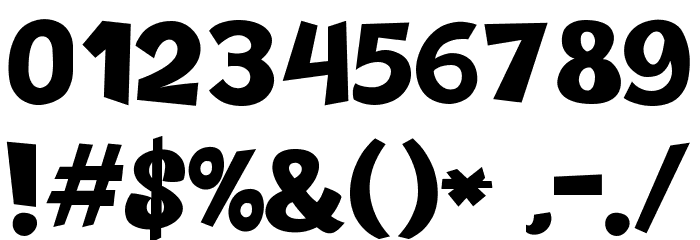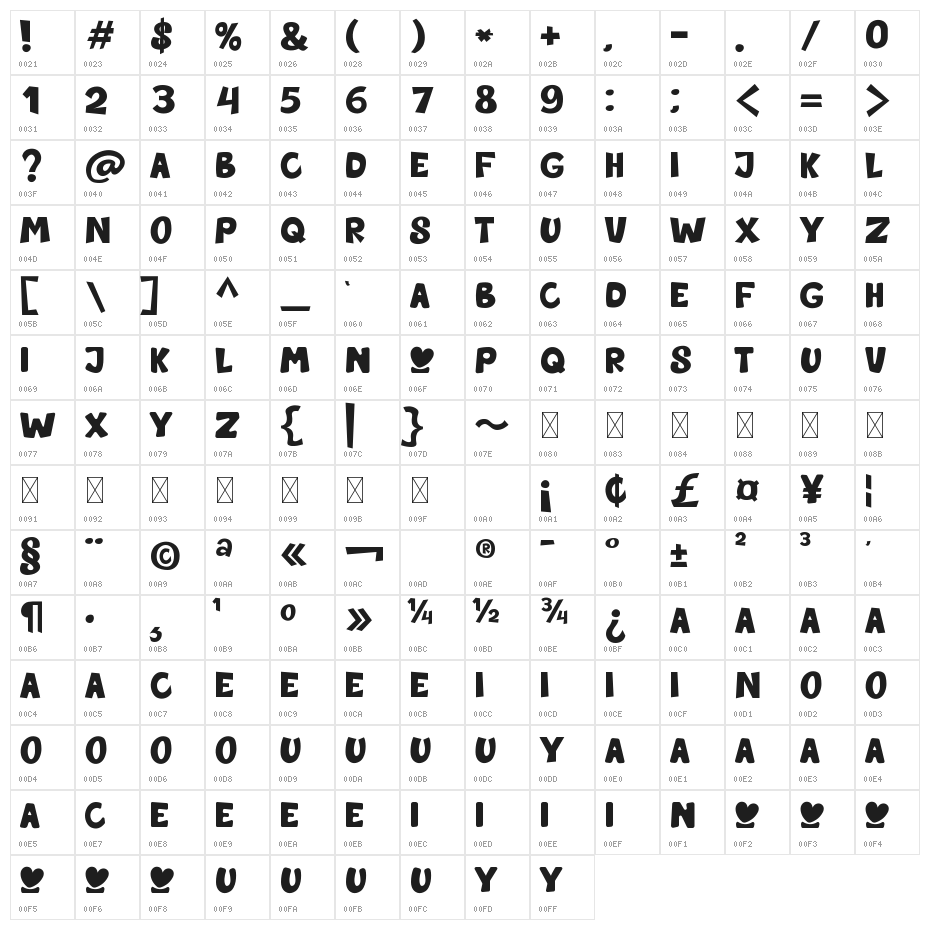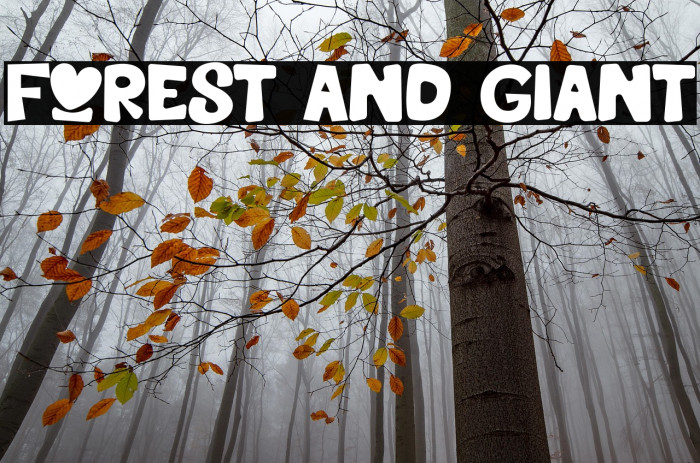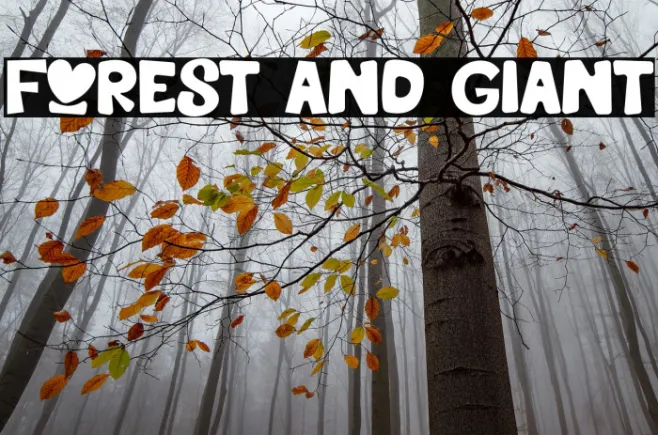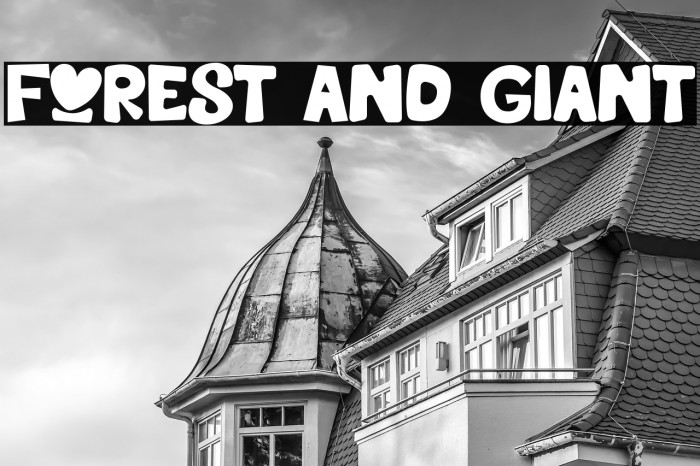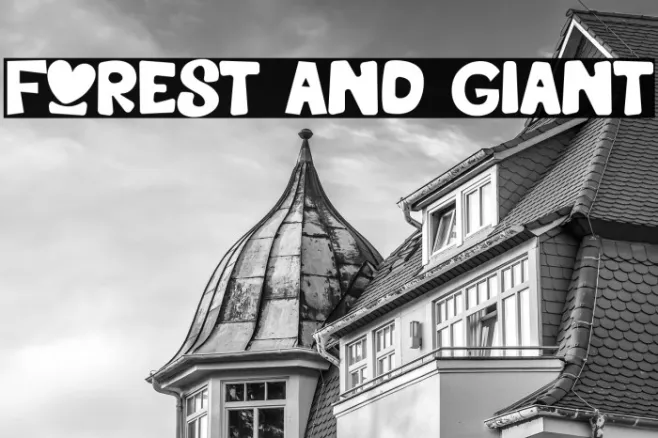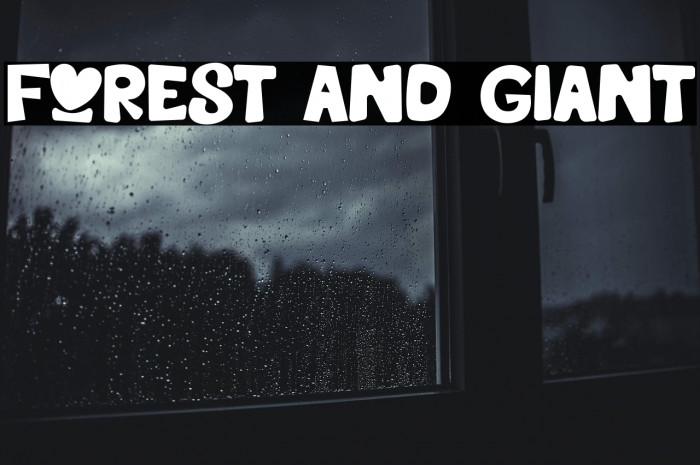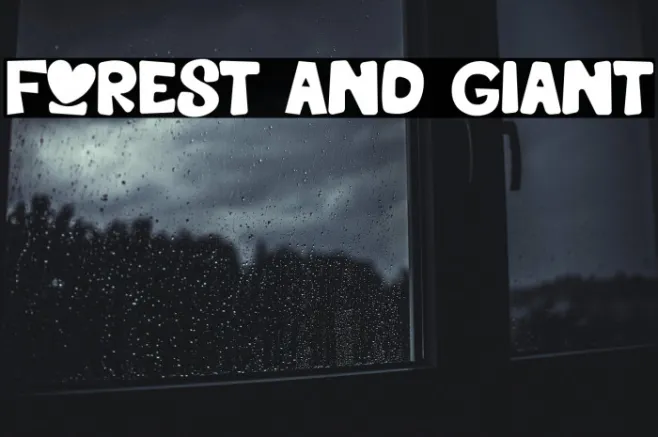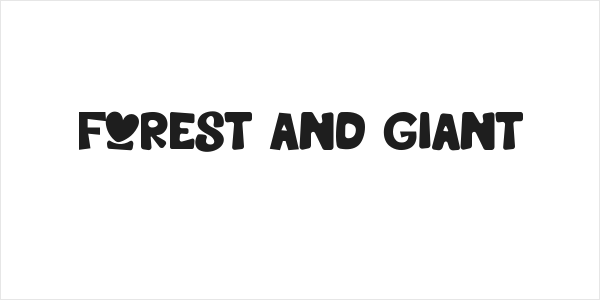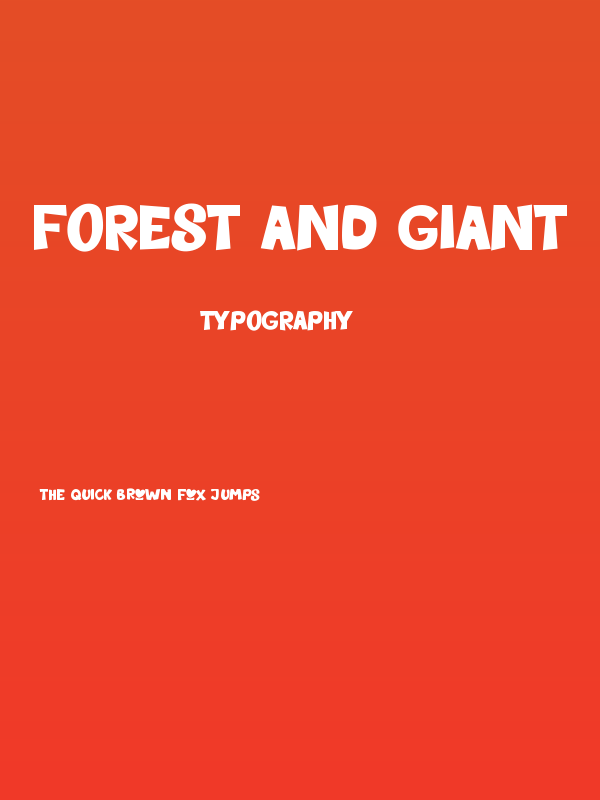
Forest And Giant Font
Forest And Giant Description
This font features a bold and playful style with exaggerated, rounded forms that give it a whimsical and fun appearance. The characters are thick and substantial, with a slightly uneven baseline that adds to its quirky charm. The uppercase and lowercase letters maintain a consistent weight, and the numbers are equally bold and eye-catching. Special characters are designed with the same playful aesthetic, making this font ideal for projects that require a lively and engaging look. Its unique style makes it stand out, perfect for capturing attention in creative designs.
| Proposed Projects | Ideal for children's books, playful branding, posters, and party invitations. |